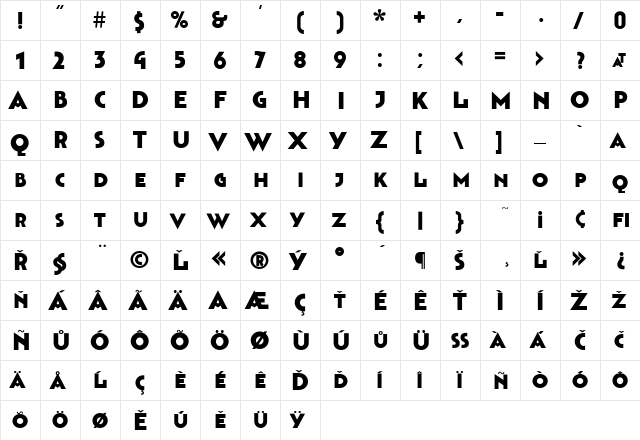
Bahnhof Black
Bahnhof offers clean, dependable letterforms without strong stylistic allegiance, making it a practical choice for designers who need flexibility.